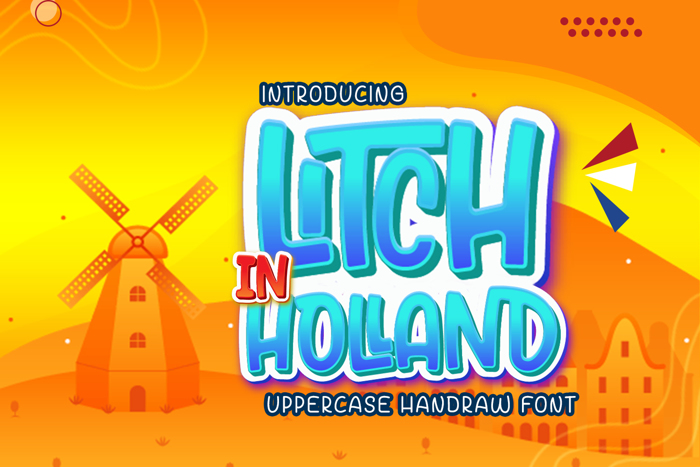
Litch In Holland, from Mevstory Studio, is a hand made font that has many interrelated characters. Litch In Holland has an opentype feature that will automatically change each character into ligatures, so it becomes a unique character. Litch In Holland has a strict style, but still gives a cheerful impression, making it very easy to read and apply in all design projects such as poster designs, clothing, logos, quotes, album covers, books, business cards, product designs, and many more design projects.